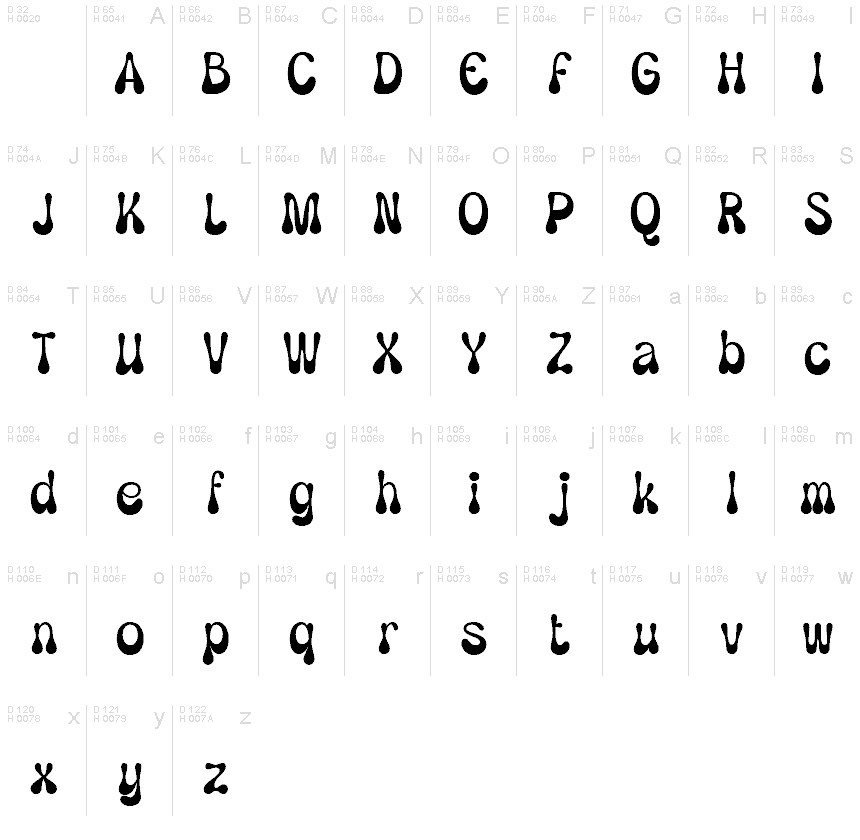
CS Mojitos Regular Demo
CS Mojitos font by Craft Supply Co. is a true party and social gathering in itself! Designed as a retro font that embodies life in the 80’s thanks to its high-contraste bold letters, it gives quirky organic typed experience. The high impact of CS Mojitos finds its roots within the different characters with fluid shapes that create an imperfect look for any reader.
Have fun with this free display font by creating posters, games designed for adults or kids, notebooks covers, or signs for vintage shops. Use it not just in pop culture references but also for logos and branding designs.